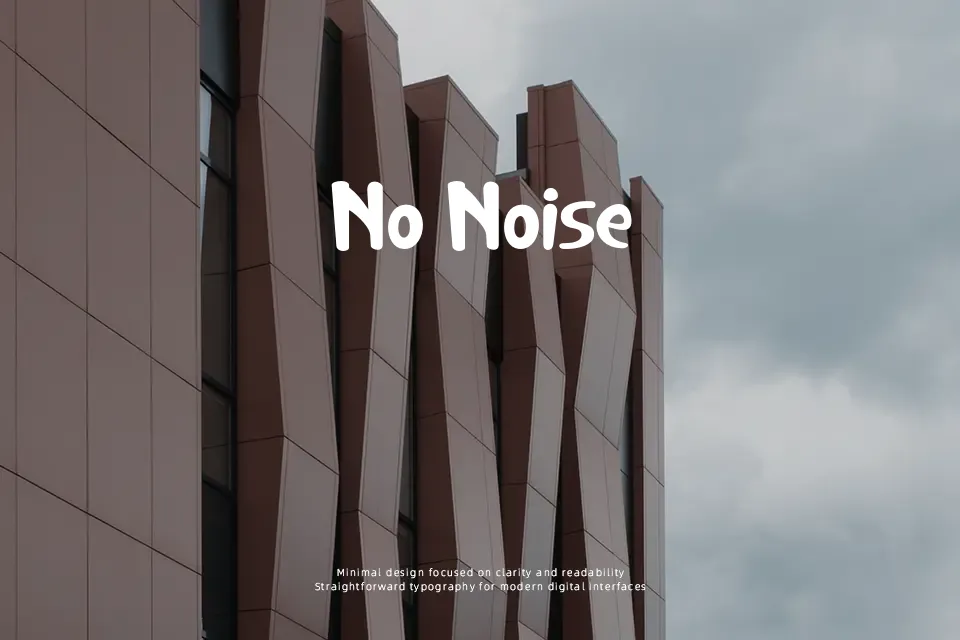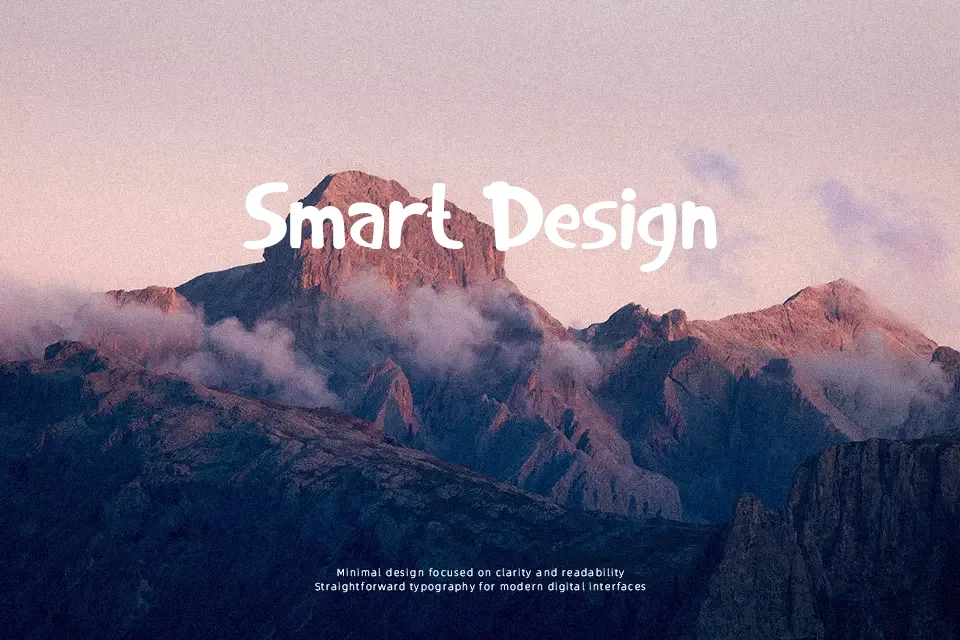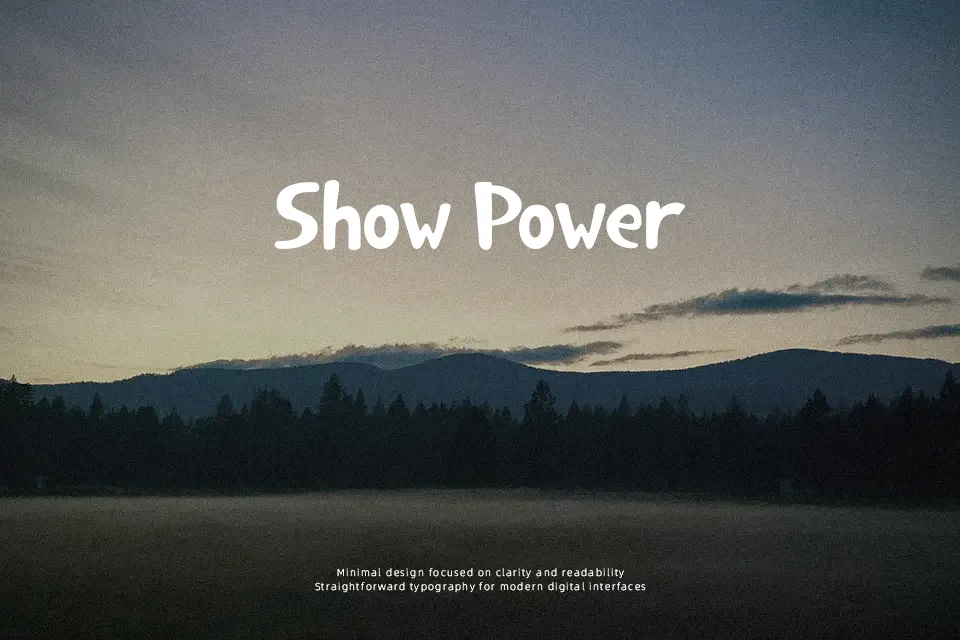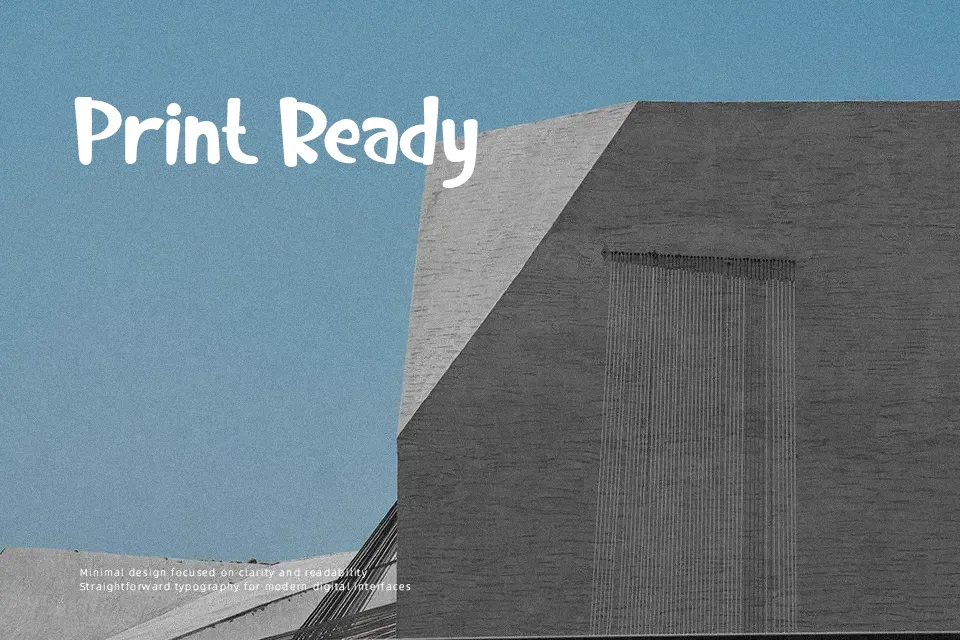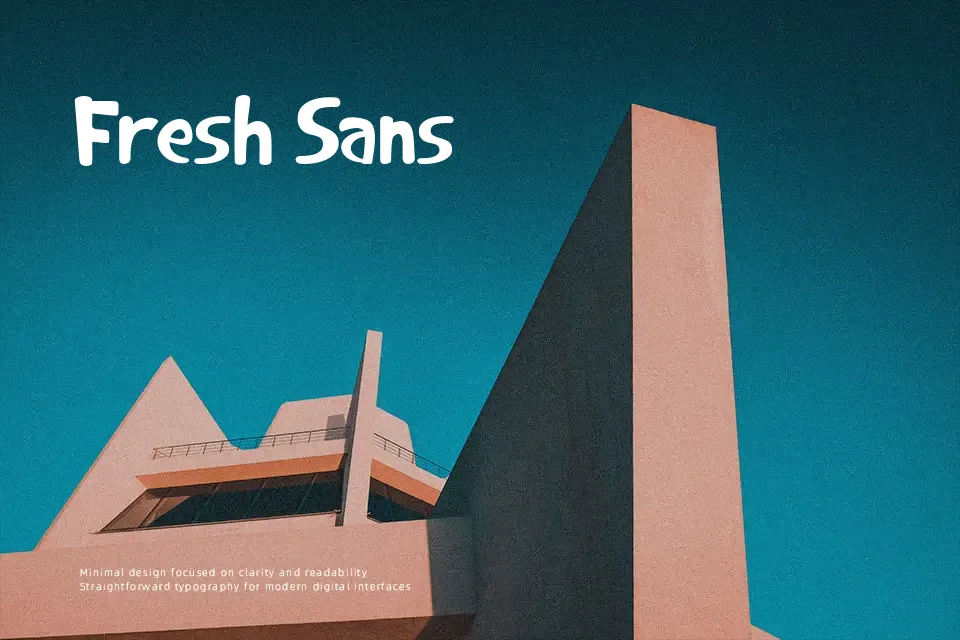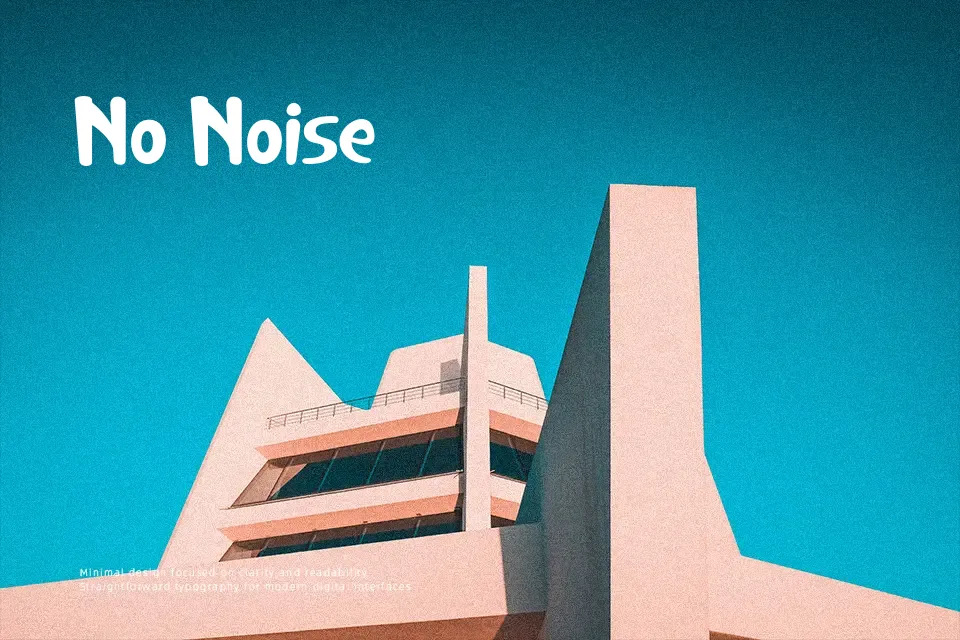
Chocolate Valentine Font
Built with heavy stroke weights and organic rounded terminals, Chocolate Valentine Font establishes a whimsical, cartoon-inspired presence across display compositions. The typeface exhibits minimal stroke contrast, wide character proportions, and moderately compact spacing that keeps adjacent letterforms closely unified. In large titles, event posters, and sweet-themed merchandise labels, the bold outlines ensure strong legibility from a distance. However, the exaggerated stroke thickness and decorative curvature diminish character distinction when scaled down to small captions. Dense letter shapes also create visual fatigue during extended reading, making this design far less practical for multi-paragraph body text than for expressive, prominent headline applications.
Best For: confectionery packaging labels, holiday greeting cards, party event posters, dessert menu headlines
Not Ideal For: dense editorial body text, corporate annual reports, small interface captions, mobile app system text